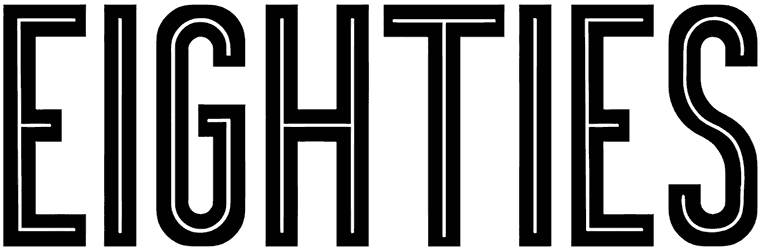
Eighties Font
Eighties font has that neon-era confidence where every letter feels ready for a roller rink poster, arcade flyer, or VHS cover with too much personality to behave. The retro display style brings back that loud 80s charm without feeling like a cheap costume, which is exactly the balance designers keep hunting for.
Use it for synthwave covers, party flyers, vintage merch, gaming graphics, throwback logos, cassette-inspired posters, or social media titles that need instant nostalgia. Pair this retro font with pink-blue gradients, chrome details, grainy shadows, palm silhouettes, or glowing lines, and your layout starts dancing under electric lights.